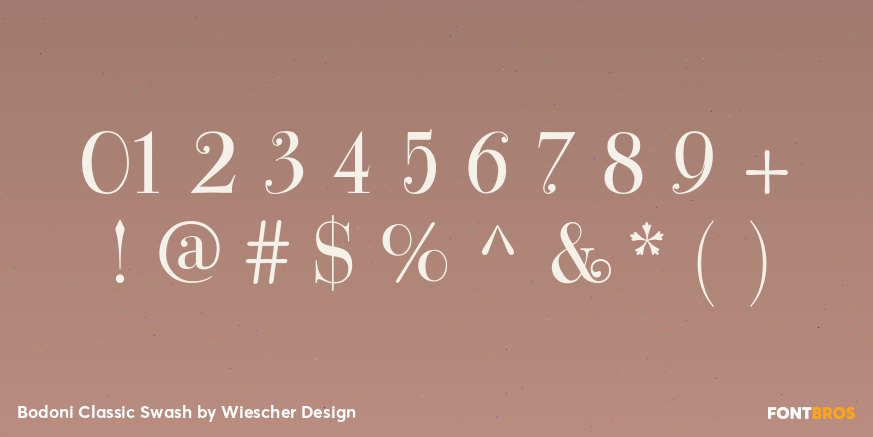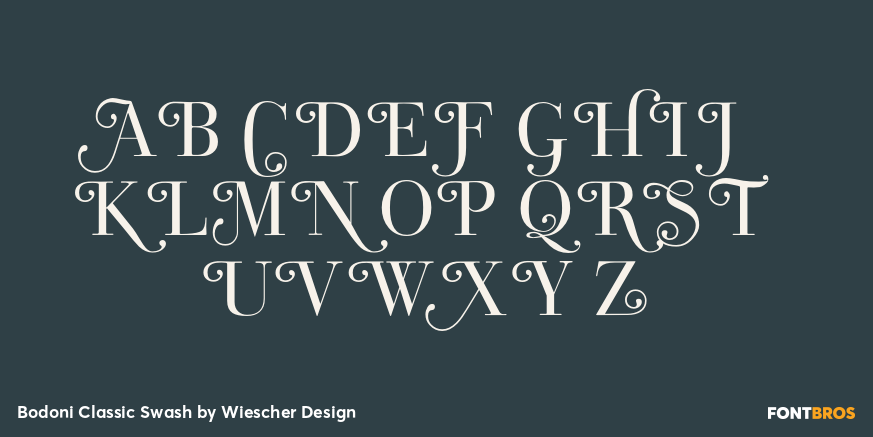
Bodoni Classic Swash
Font Family by Wiescher Design
Bodoni Classic Swashes is my personal addition to Bodoni's family of typefaces.
Bodoni did not design a decorative version. His quest was for purity in book design. Even though in his days it was not called design; he thought of himself purely as a printer.
But I think, especially after visiting the Bodoni museum in Parma, if Giambattista were alive today he would design a decorative typeface. Yours classico, Gert Wiescher